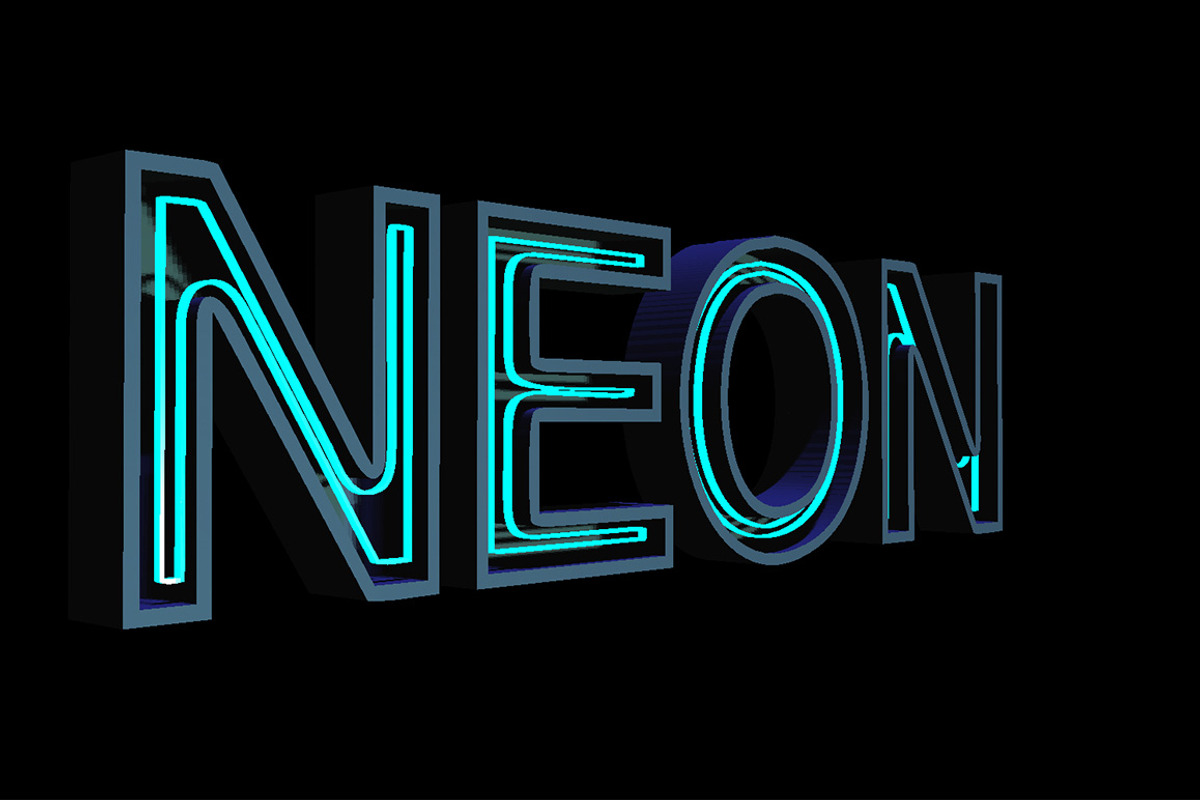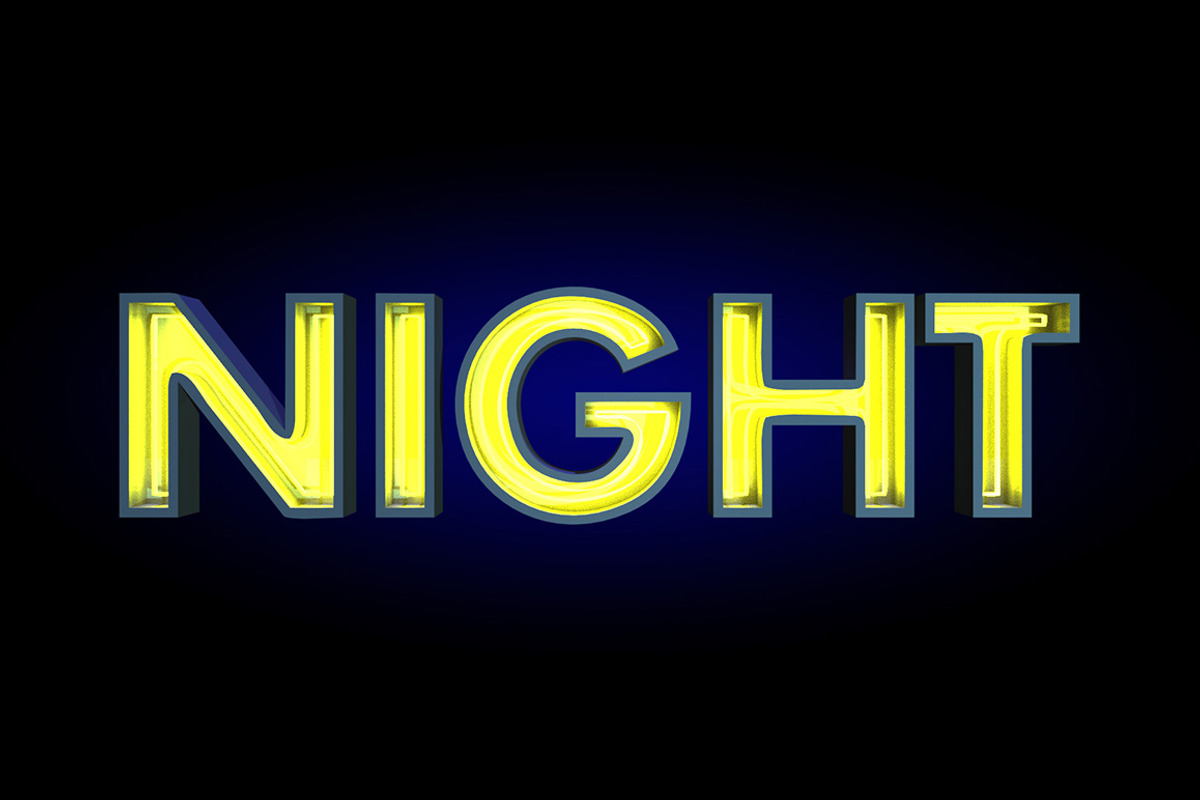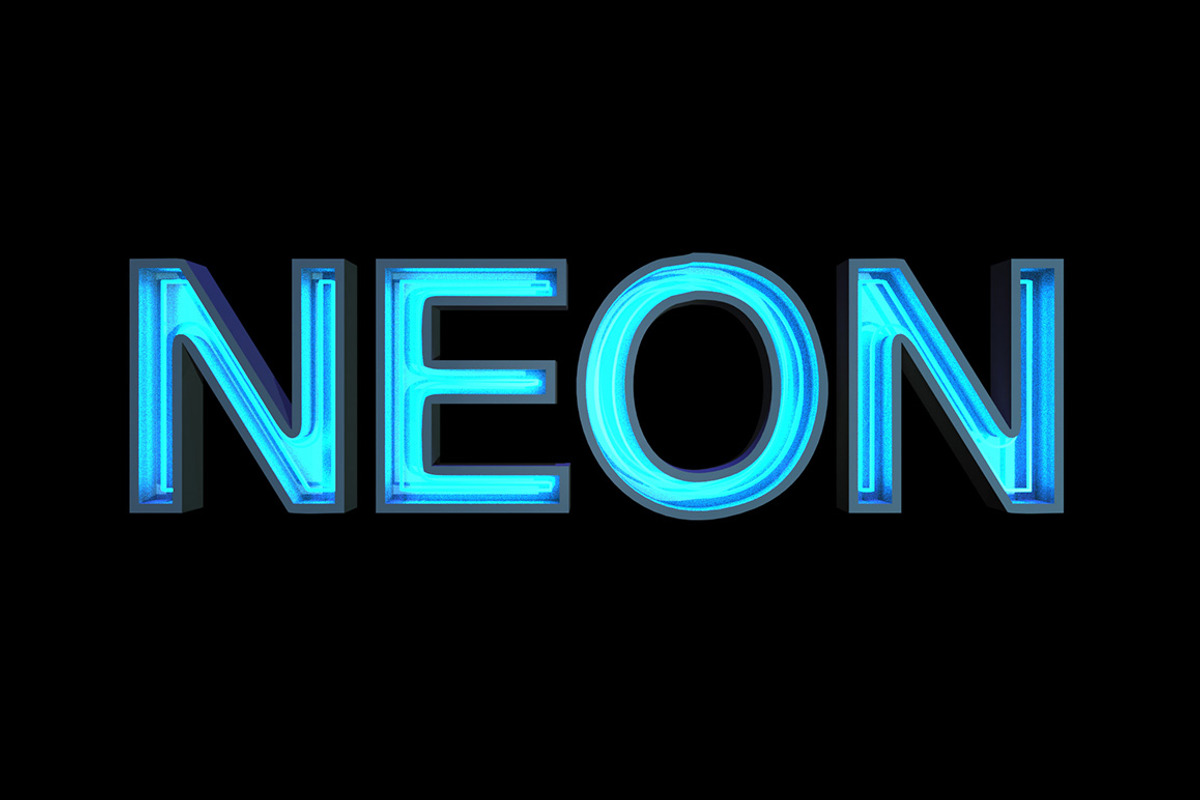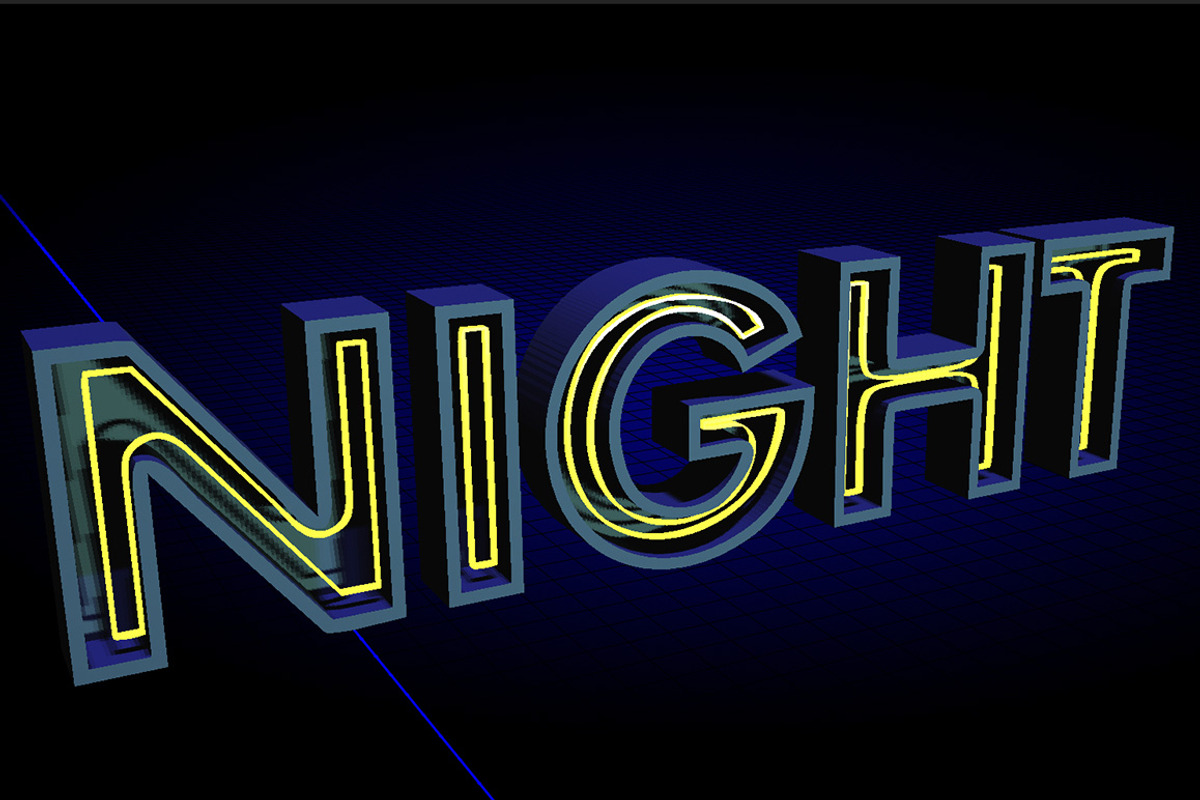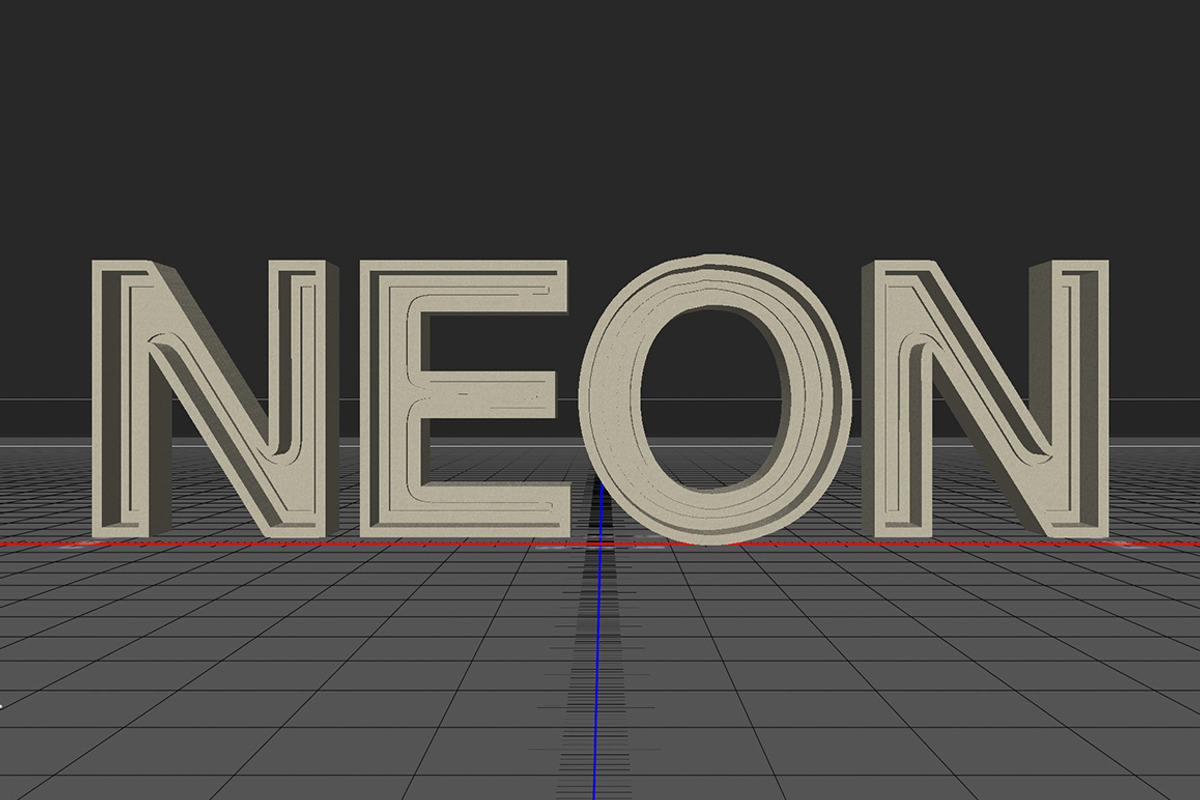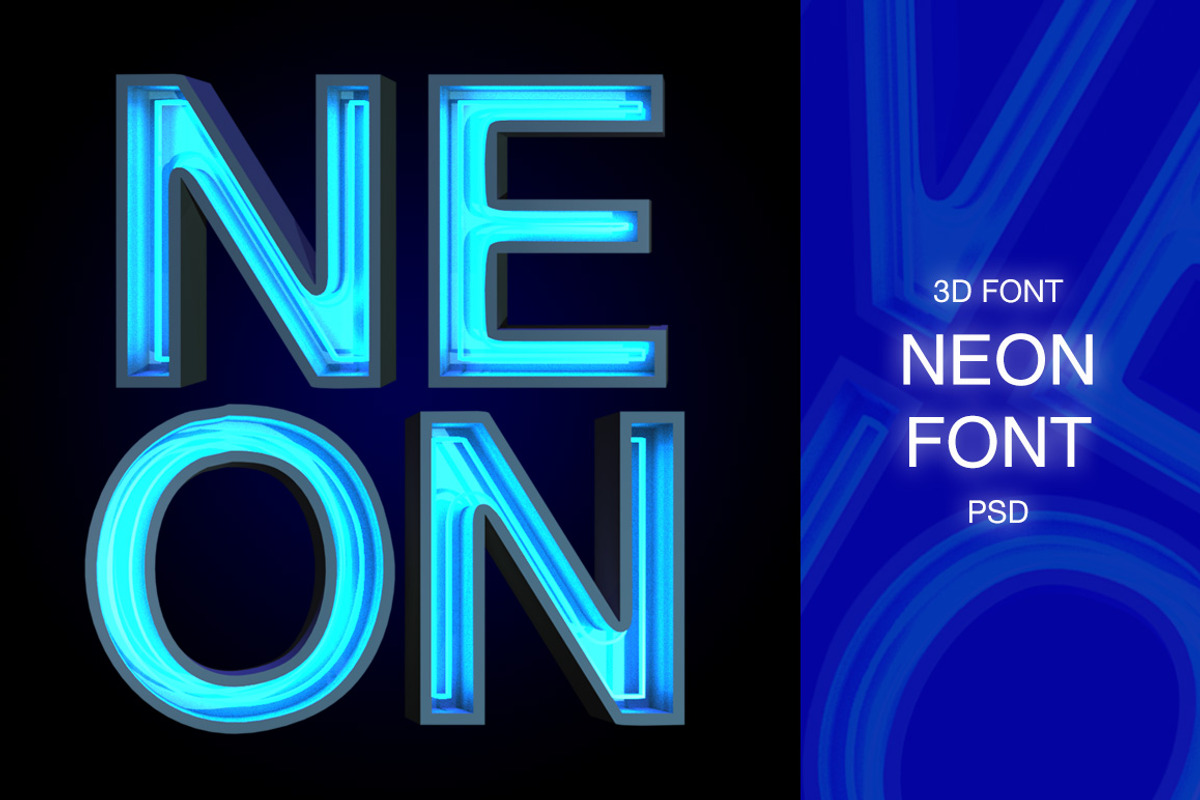
3D FONT | NEON | 3D PSD
Easy create your neon letters. Customize your own text from the NEON. You can choose any font, text and color, rotate 360º. Rendering any size.